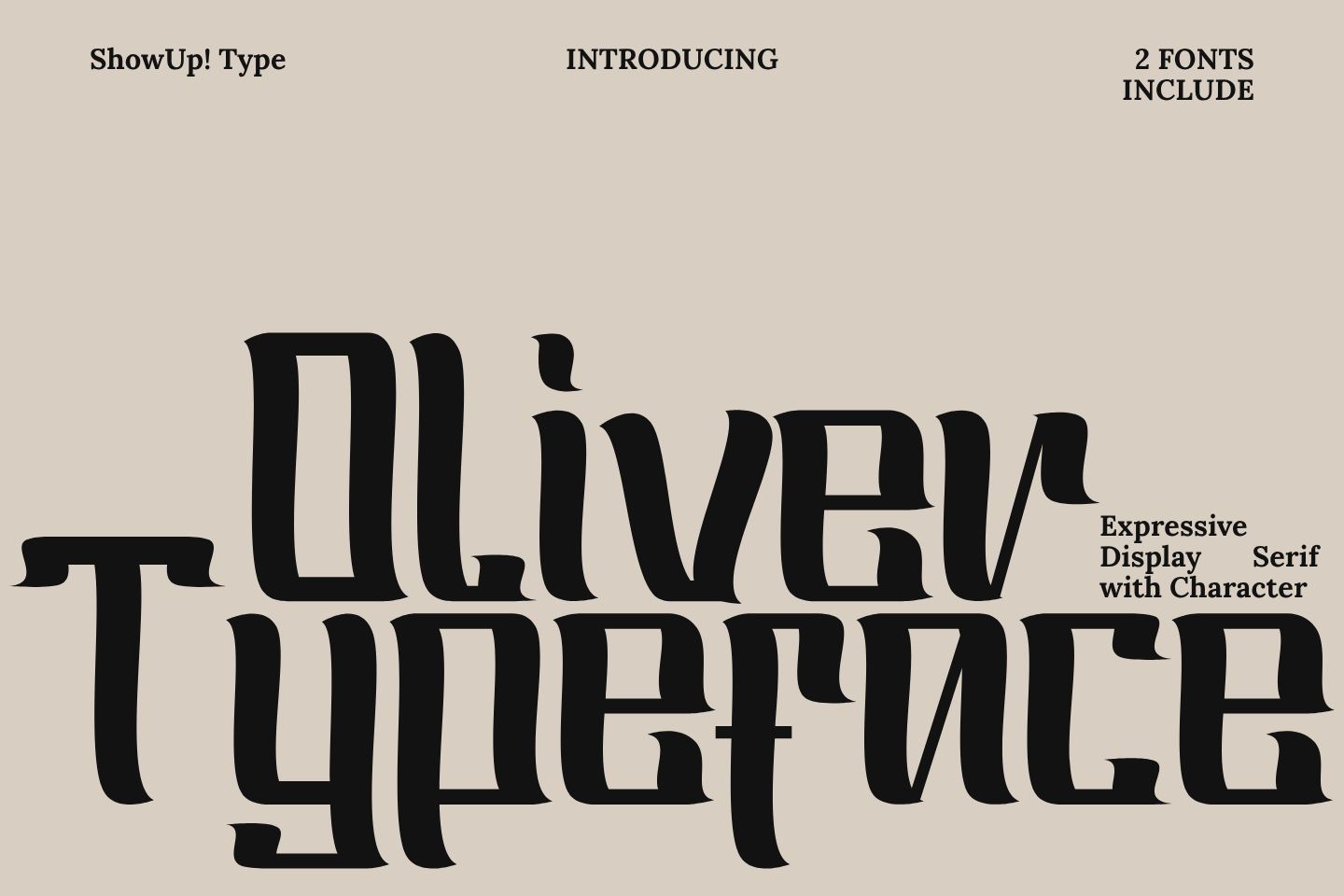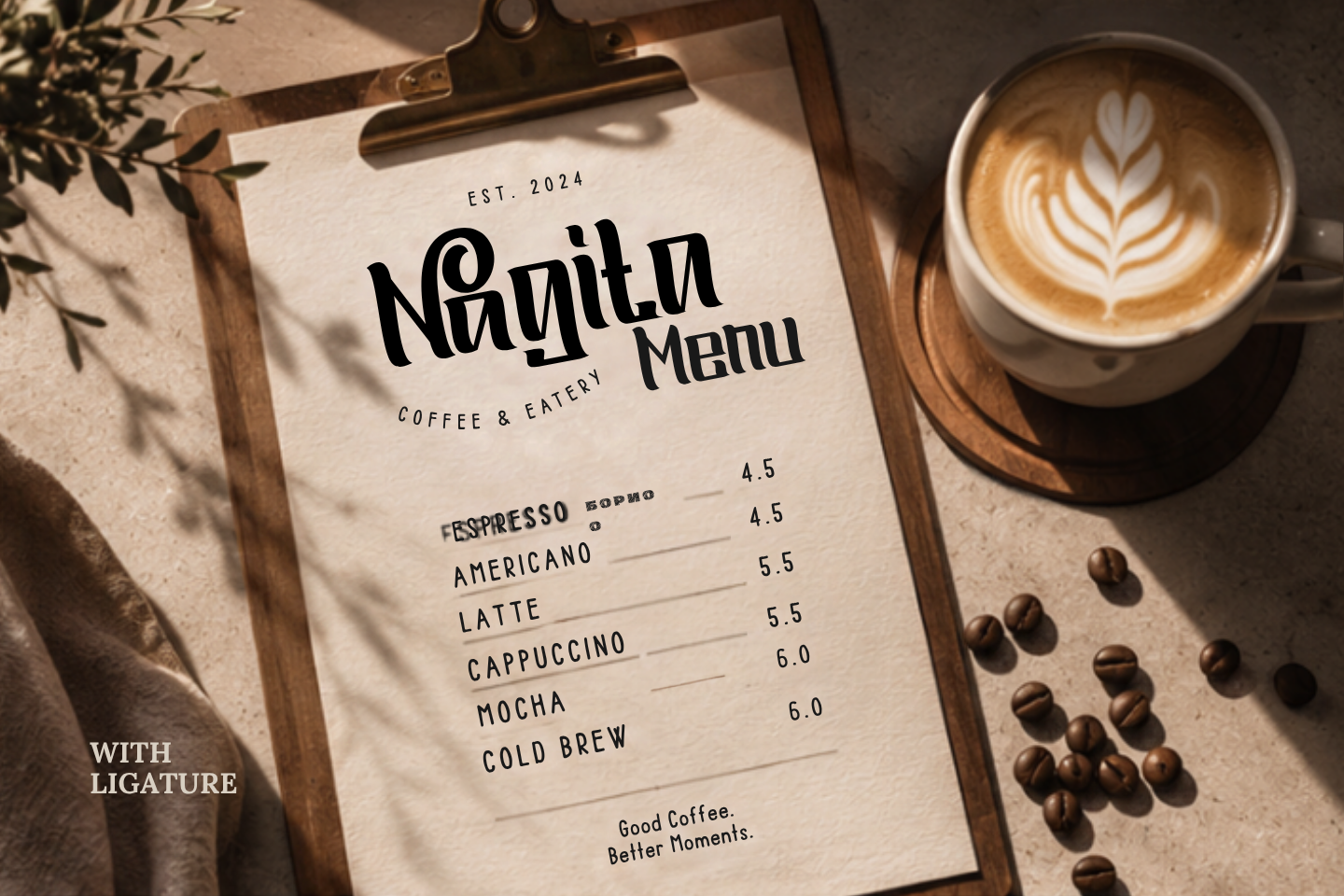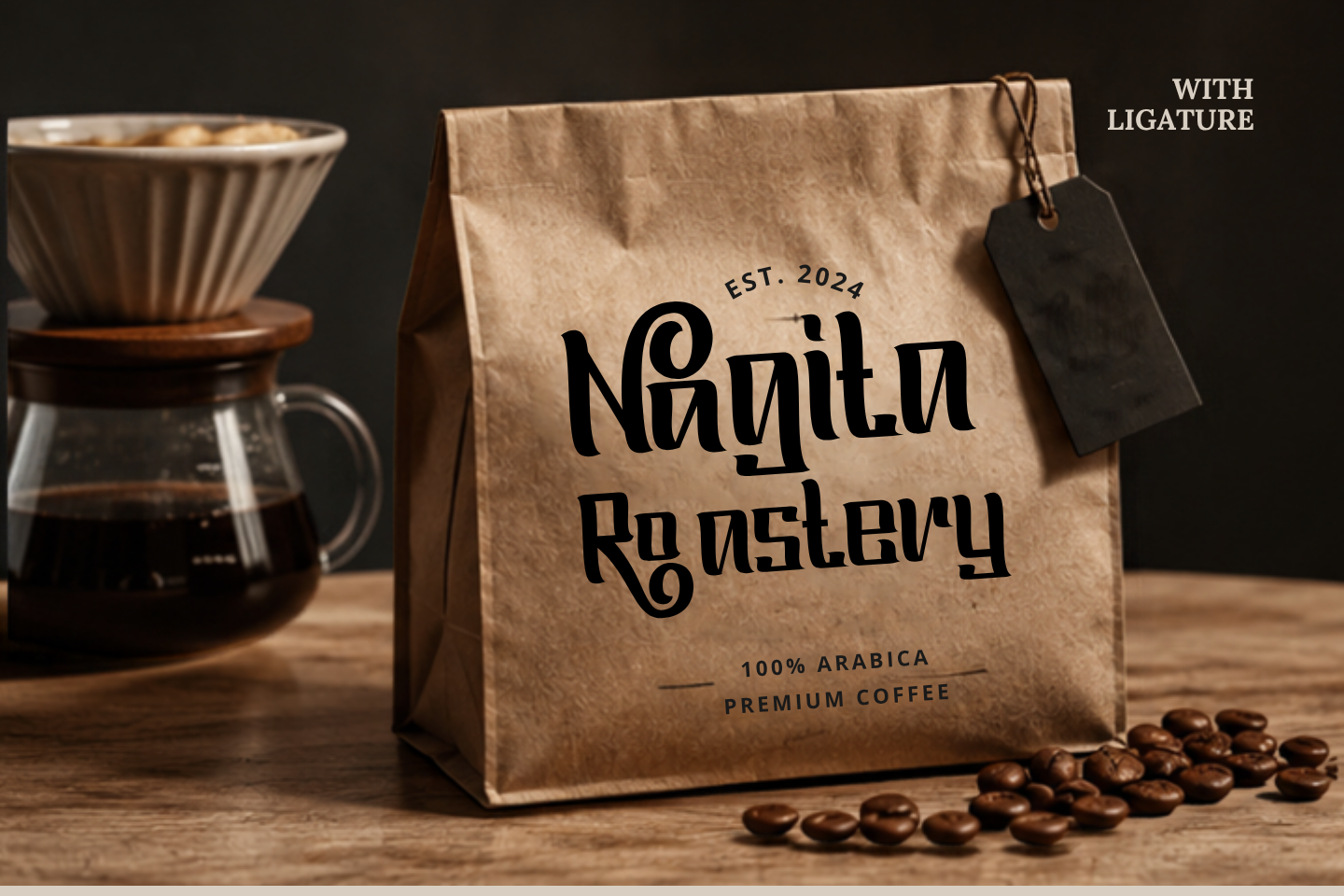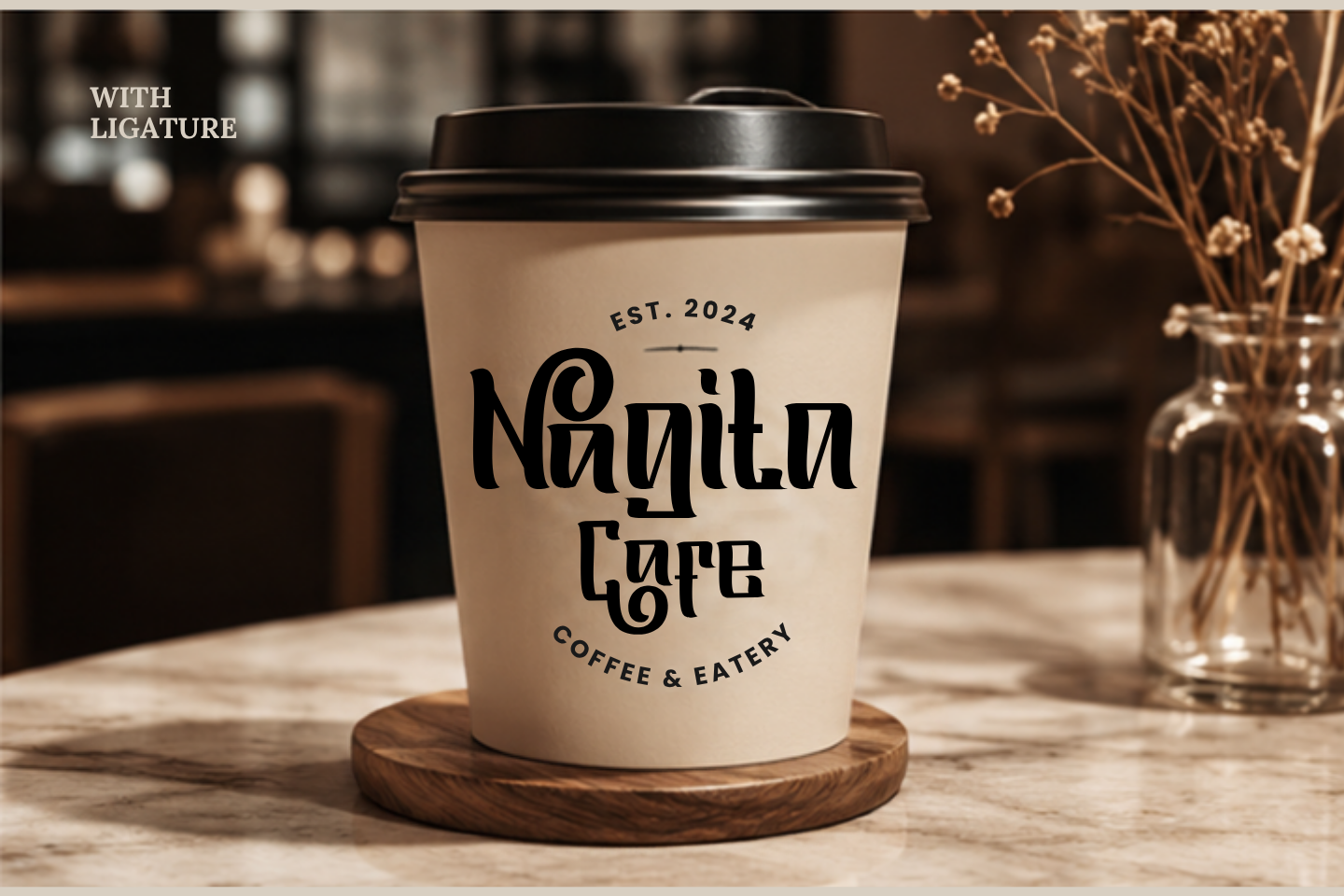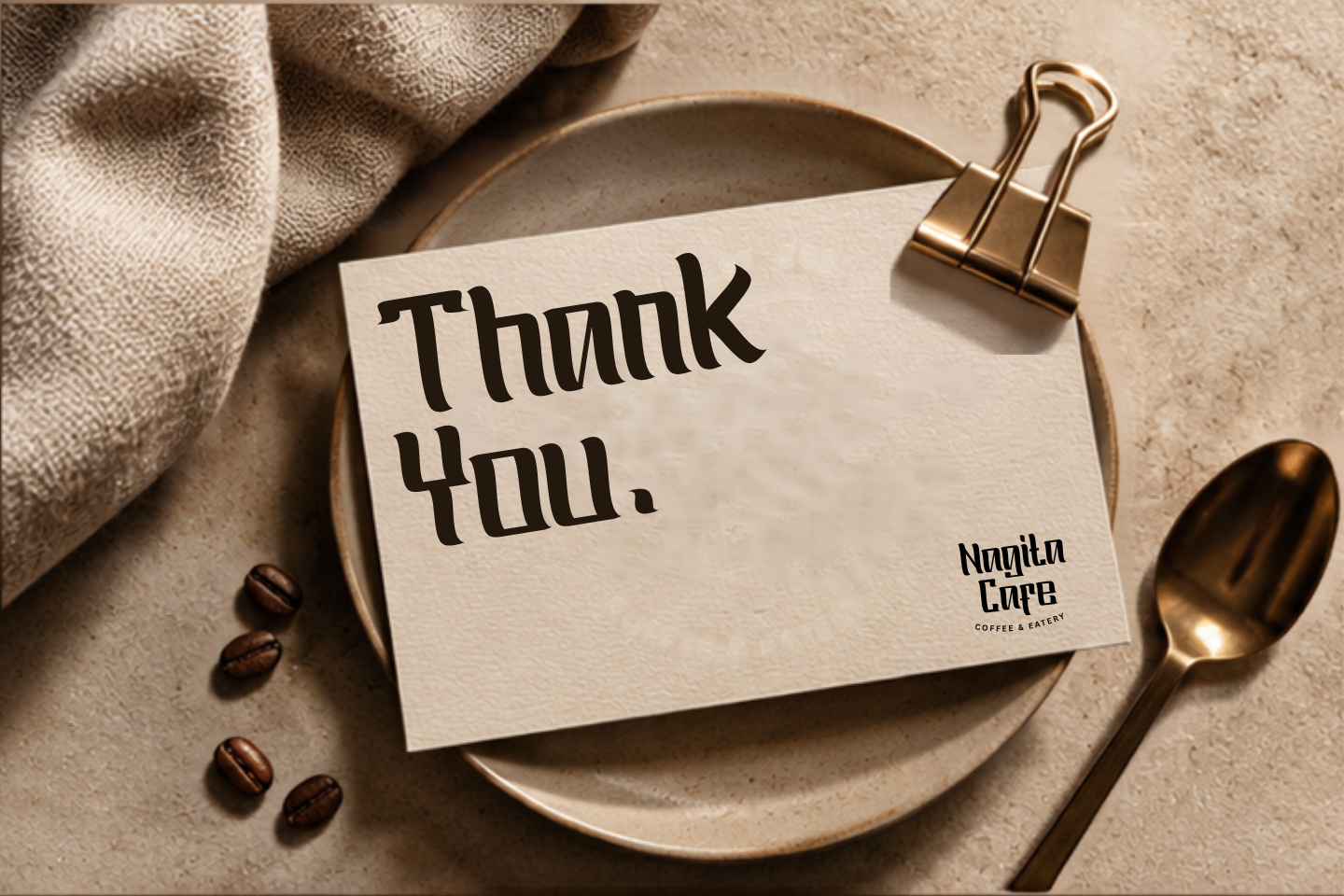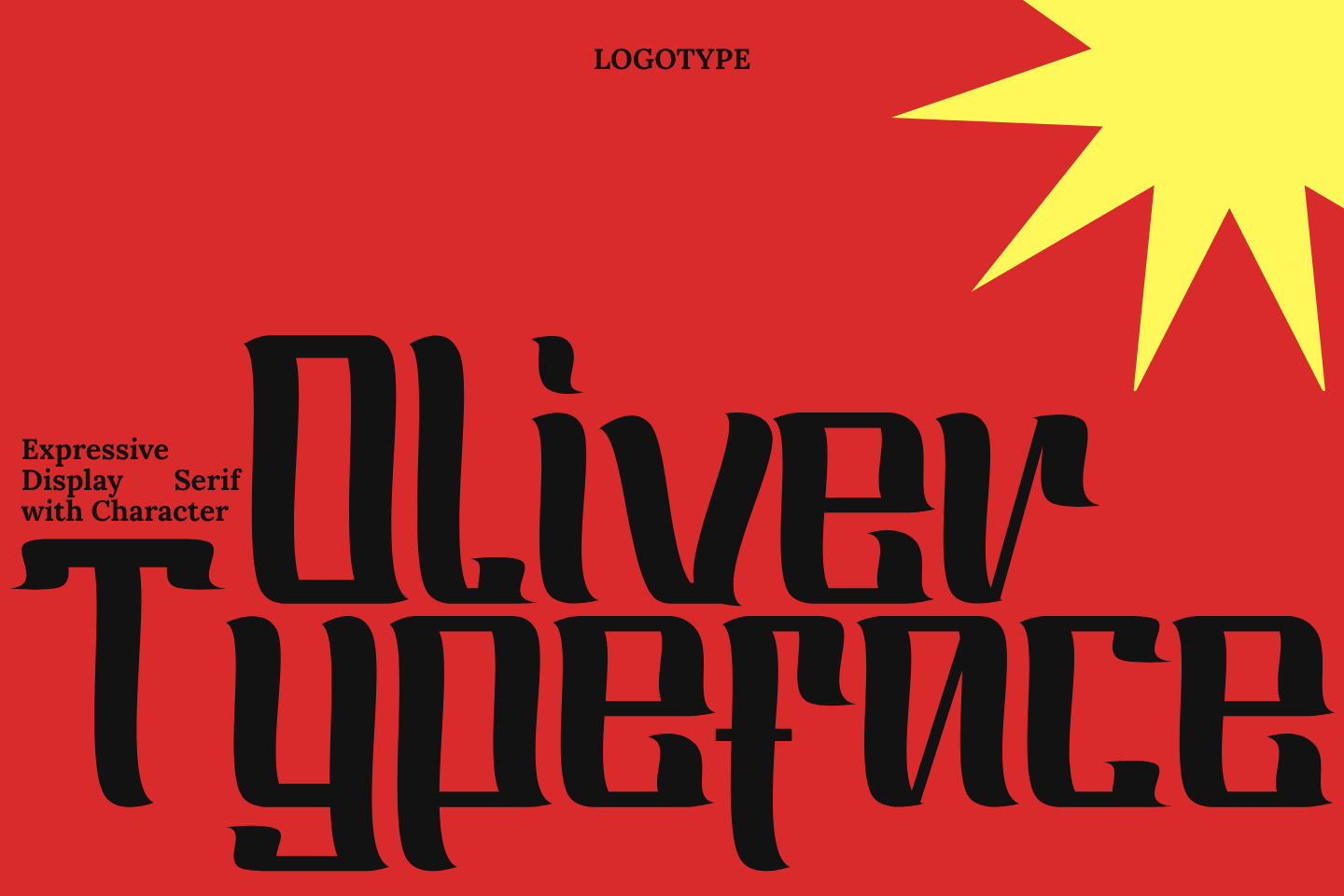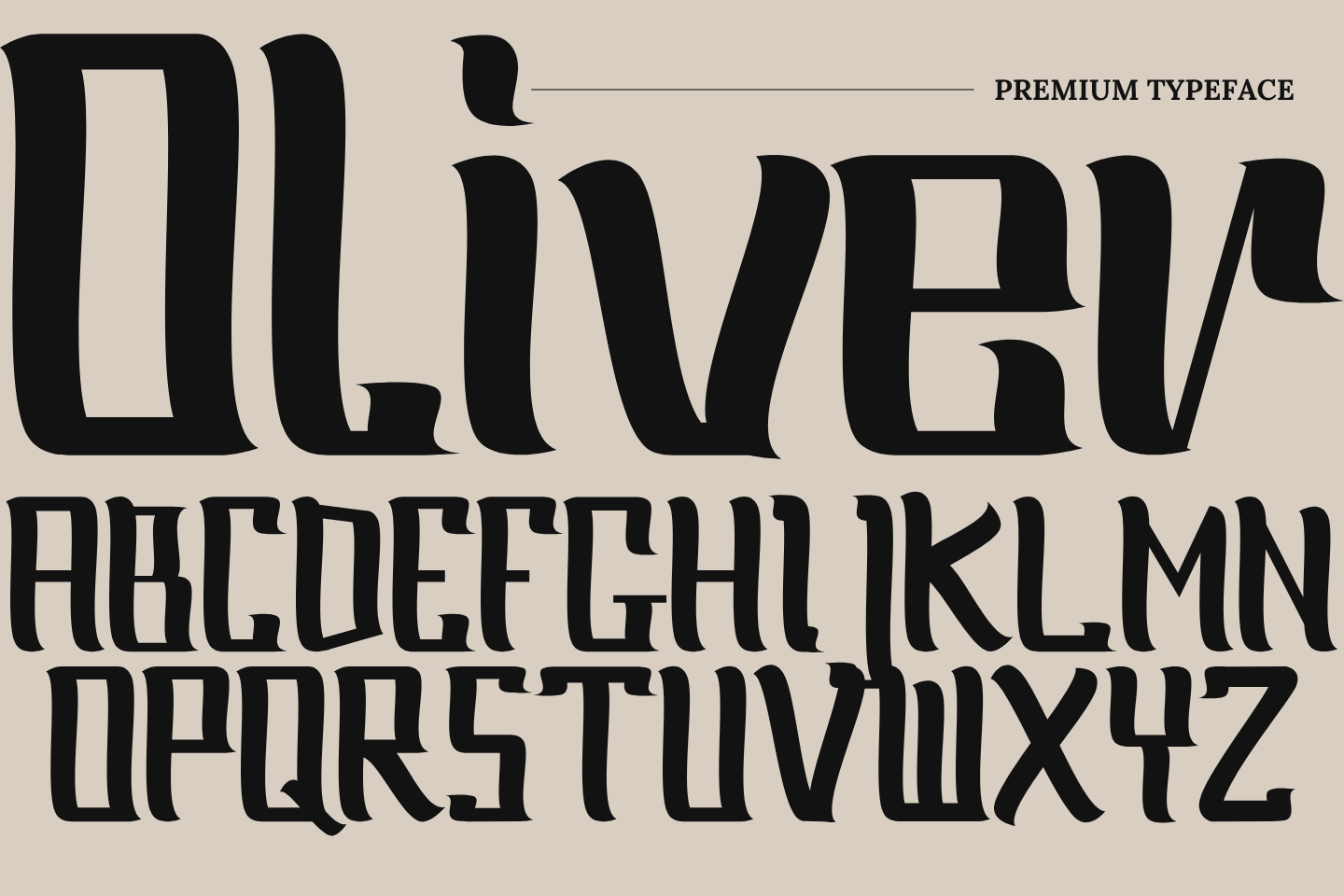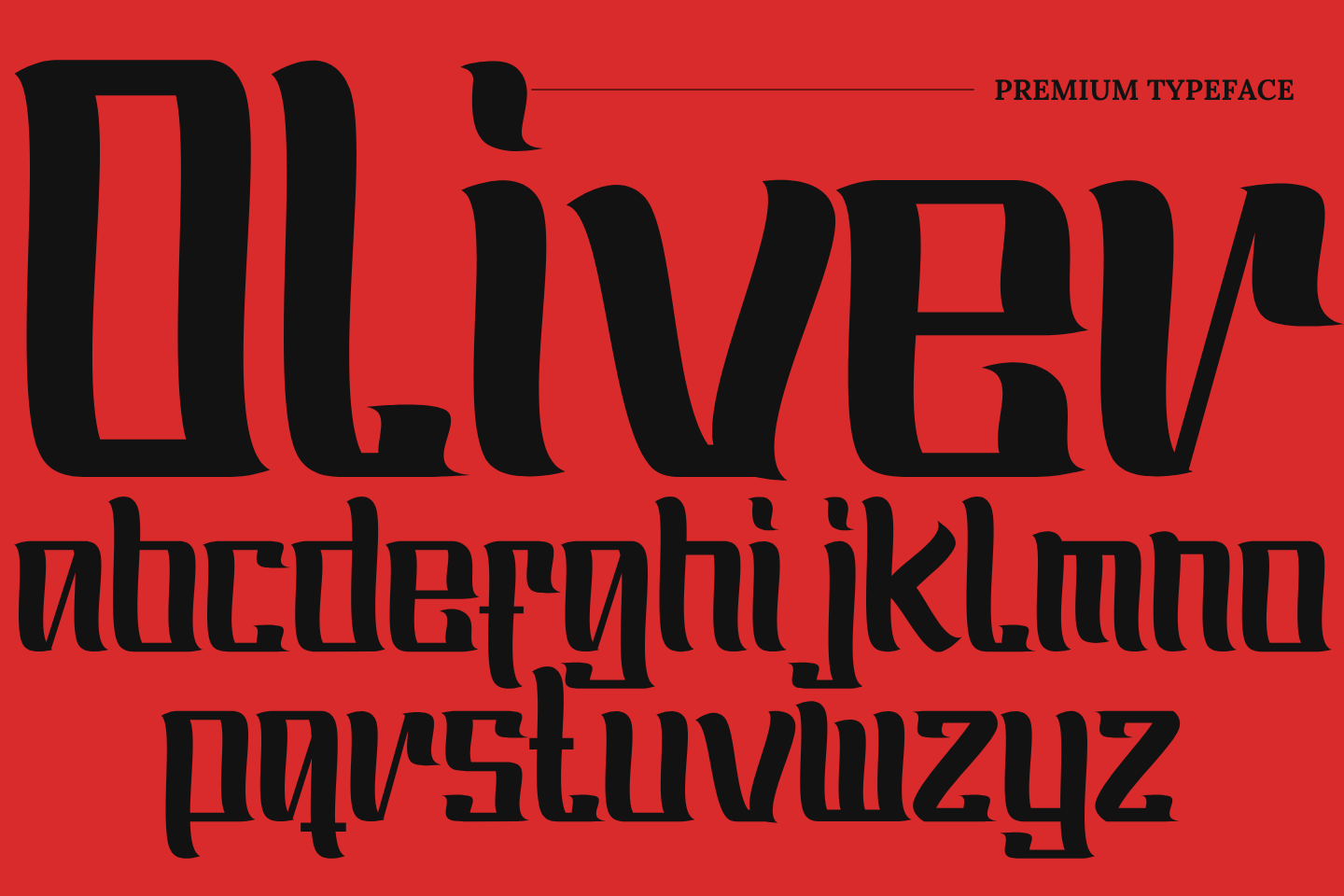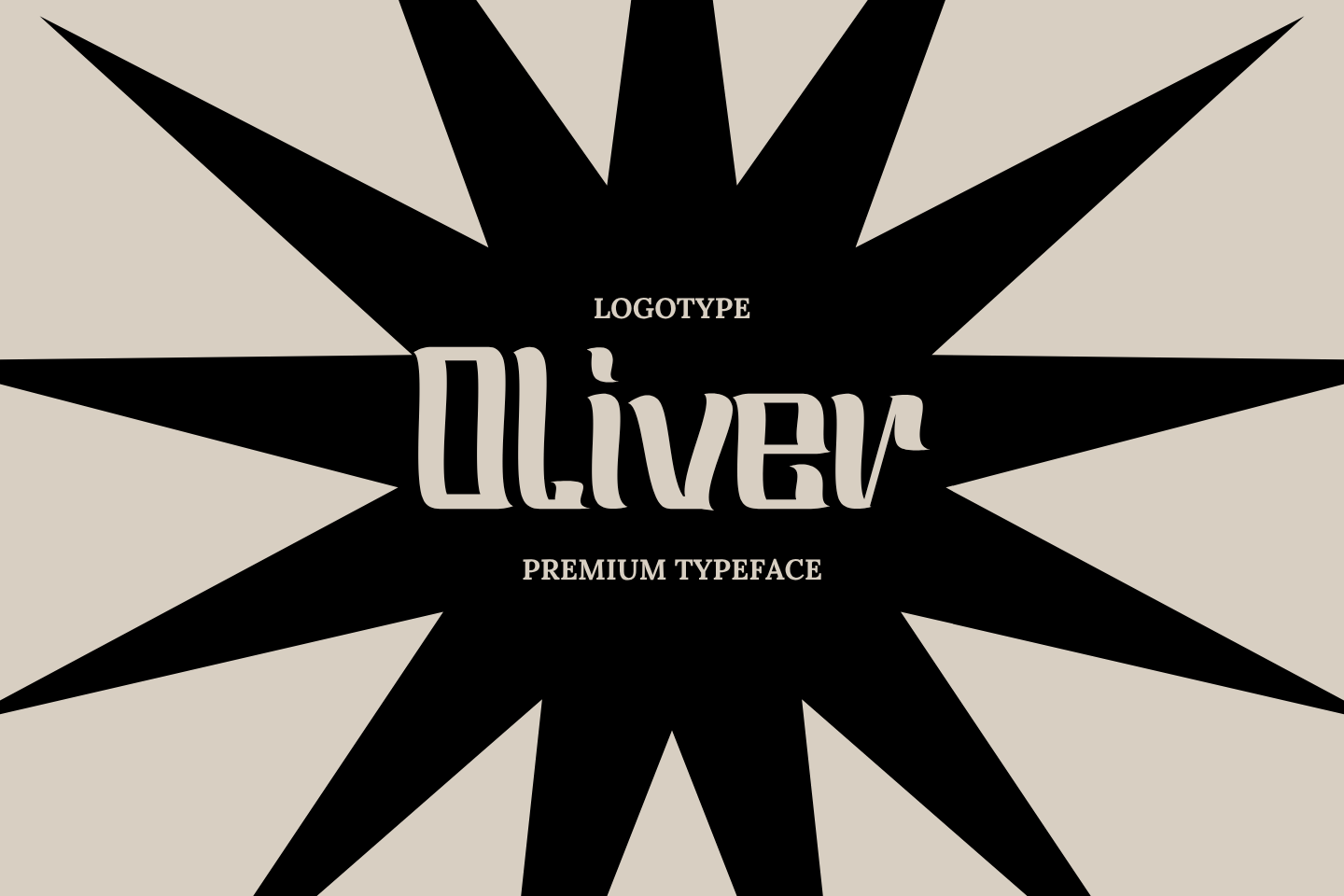
Give your designs a timeless handcrafted character with Oliver, a vintage display typeface inspired by classic sign painting, old packaging, and retro lettering.
Featuring decorative swashes, bold letterforms, and authentic handcrafted details, Oliver is designed to make logos and headlines instantly memorable. Whether you're creating branding for cafés, restaurants, barbershops, breweries, clothing labels, or artisan products, Oliver brings a strong vintage personality to every project.
The family includes 2 complementary font styles that work beautifully together, allowing you to create eye-catching typography with ease.
Perfect For:
• Vintage Logo Design
• Coffee Shop Branding
• Restaurant & Café Menus
• Brewery & Whiskey Labels
• Barbershop Branding
• Apparel & Merchandise
• Packaging Design
• Badge & Emblem Design
• Posters & Headlines
• Signage
• Social Media Graphics
• Retro Branding Projects
Font Features:
• 2 Font Styles Included
• Numbers & Punctuation
• Decorative Swashes
• Vintage Display Style